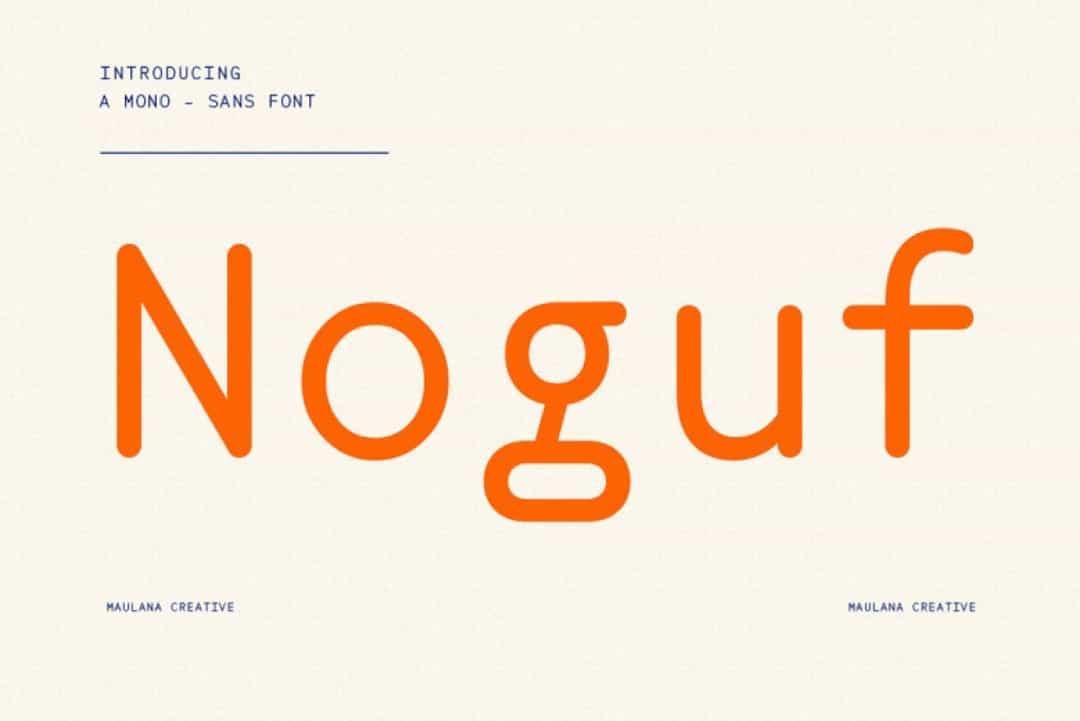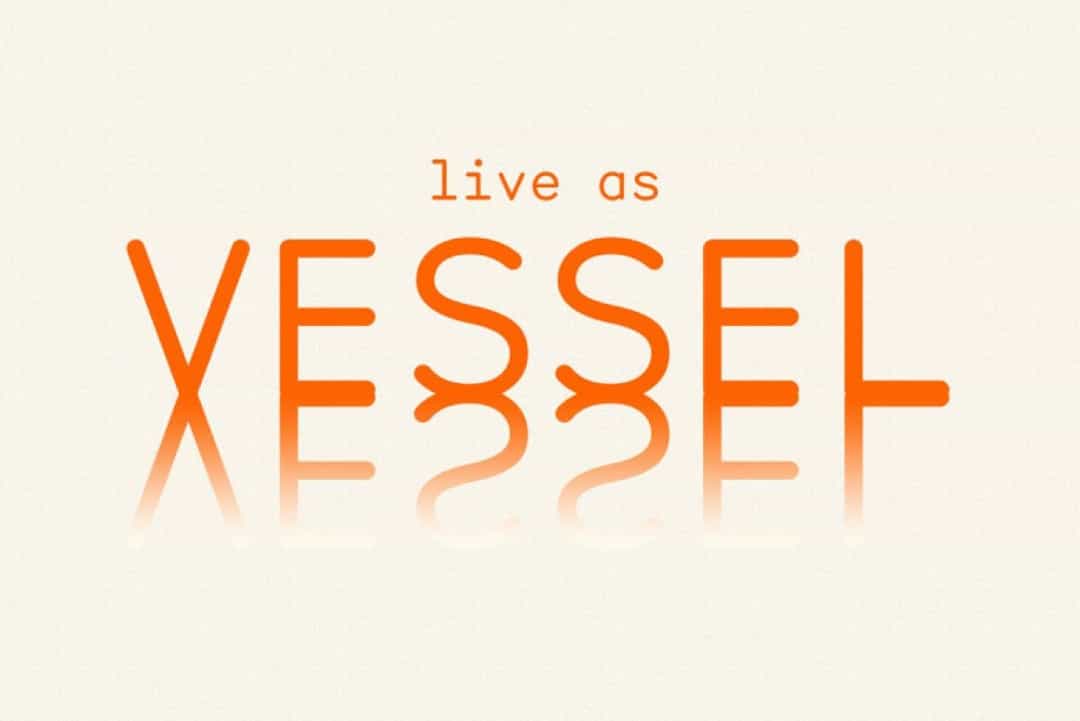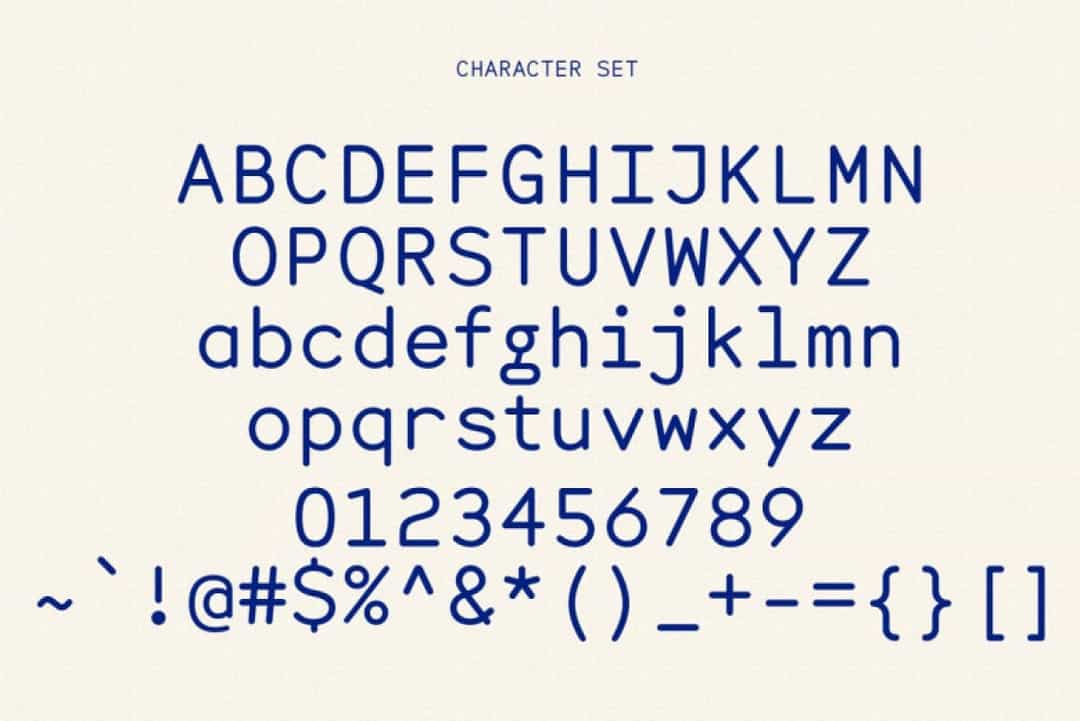
Noguf is a modern single space display without font. With a regular consist stroke amusing character featuring subtle ligatures and alternative fonts. Noguf fonts support multilingual usage in over 100 languages!